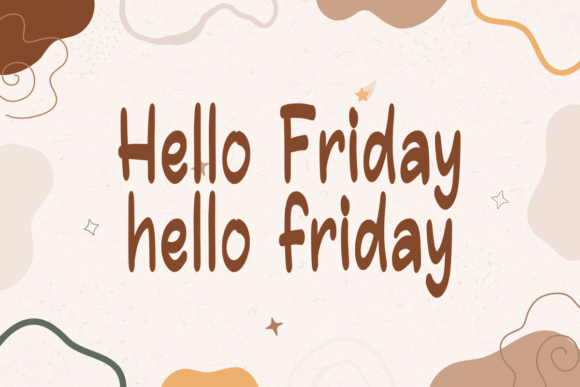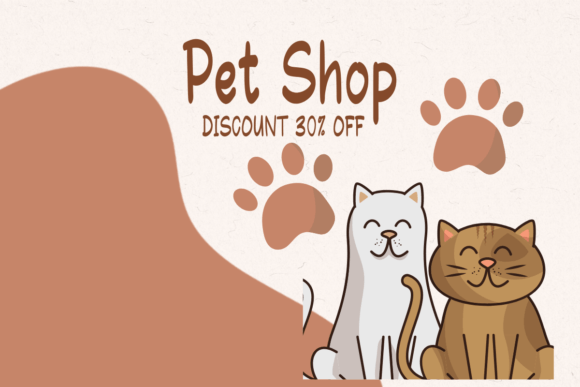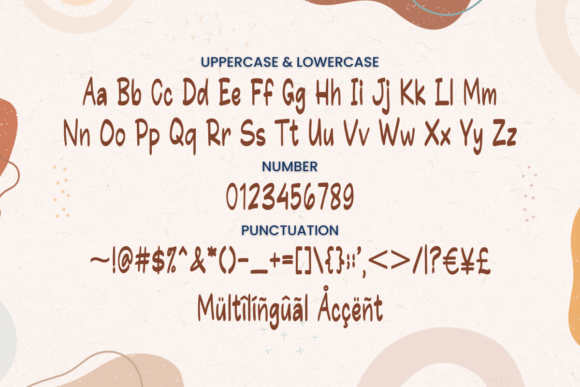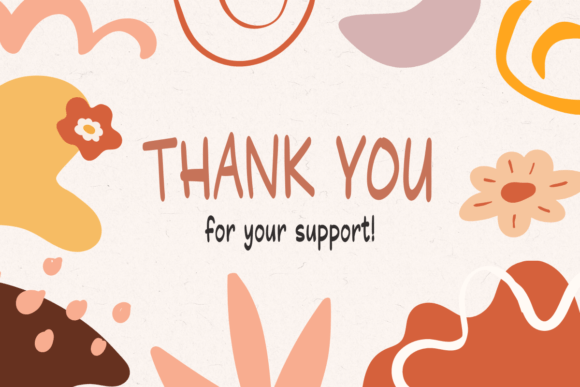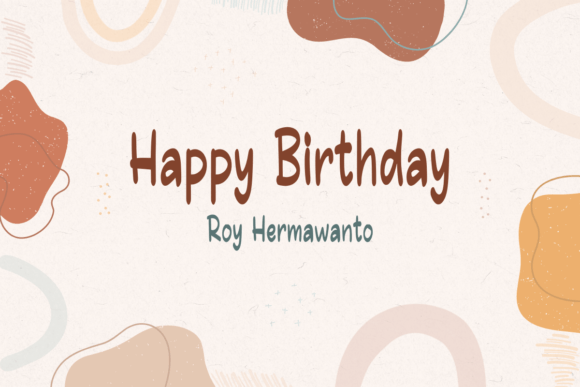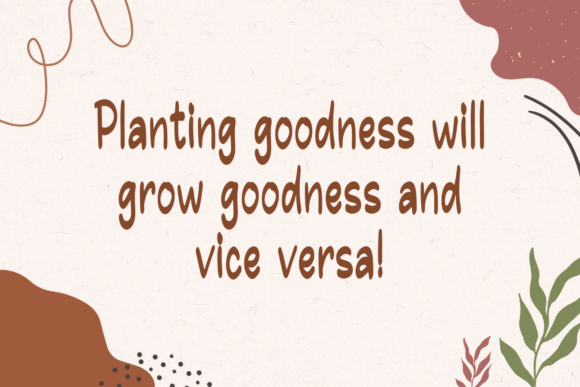
Hello Friday Font
About Hello Friday Font
Hello Friday is a fun and relaxed handwritten font designed to bring cheer to any creative project. Whether you’re crafting greeting cards, creating digital content, or working on DIY designs, the Hello Friday font download offers the friendly personality and versatility you need.
Its smooth curves and casual strokes make it easy to read, while its playful character gives each word a joyful presence. This font is especially ideal for weekend-themed content, celebration posts, and informal branding efforts.
Where to Use Hello Friday Font
If you’re searching for a handwritten font that feels upbeat and inviting, the Hello Friday font download is perfect for:
• Greeting Cards – Add a cheerful, personal touch to any message
• Craft Projects – Works great on Cricut and Silhouette designs
• Digital Planners – Write like you would in a real journal
• Instagram Posts & Stories – Highlight events or quotes with flair
• Invitations – Ideal for birthdays, brunches, and casual events
• Printables & Worksheets – Add personality to educational or creative sheets
• Product Labels & Tags – Especially for handmade or homemade goods
This handwritten font pairs especially well with soft color palettes, pastel backgrounds, and fun clipart.
• Style: Playful handwritten script
• Vibe: Relaxed, casual, and joyful
• Multilingual Support: Yes
Downloading Hello Friday gives you a versatile handwritten style that radiates positivity and charm. The legibility of each character, combined with the friendly tone, makes this a go-to font for crafters, bloggers, and small business owners.
Whether you’re planning your next creative weekend project or designing something lighthearted, Hello Friday font download will bring the joy you’re looking for.